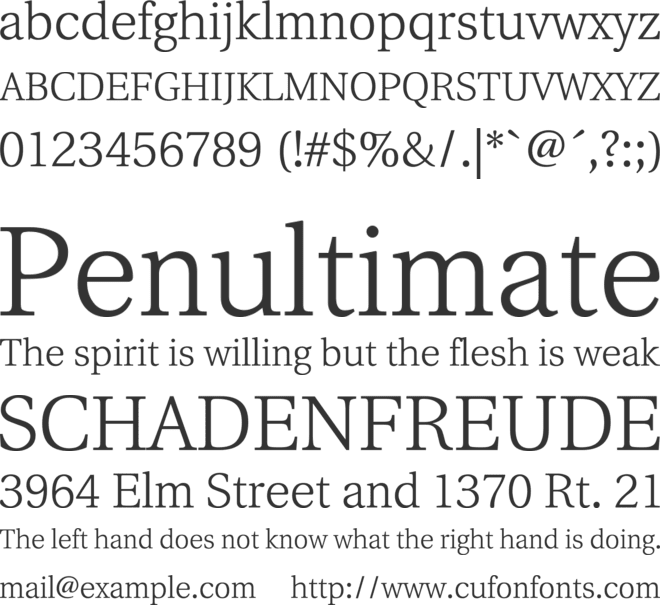
UnJamoBatang Font Family
Koaunghi Un
The Un-fonts come from the HLaTeX as type1 fonts in 1998 by Koaunghi Un, he made type1 fonts to use with Korean TeX (HLaTeX) in the late 1990's and re­leased it un­der the GPL li­cense. They were con­verted to TrueType with the Fon­tForge (PfaEdit) by Won-kyu Park in 2003.